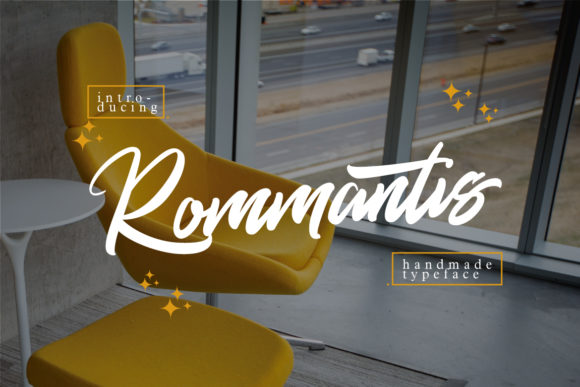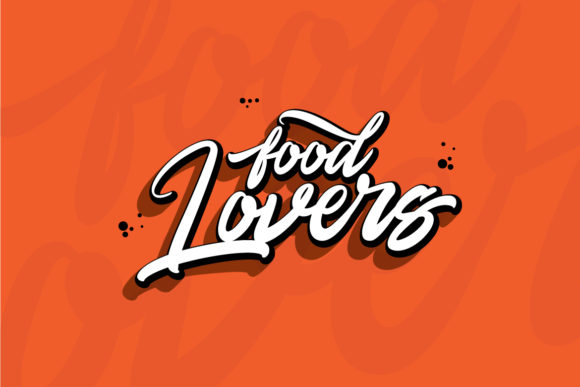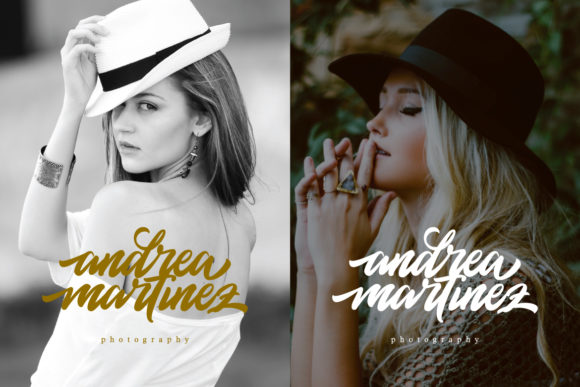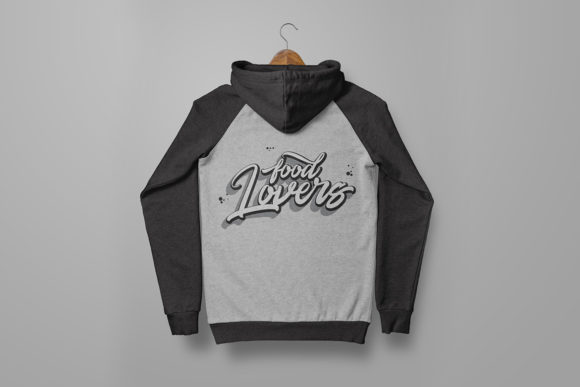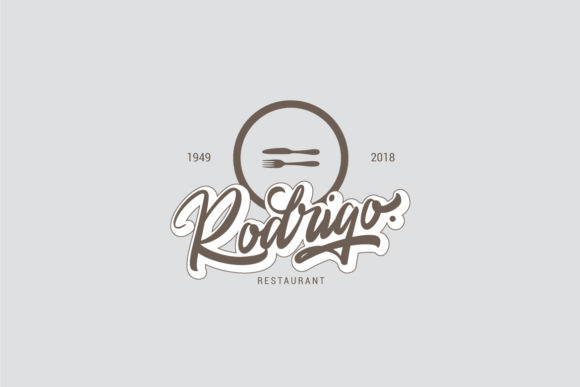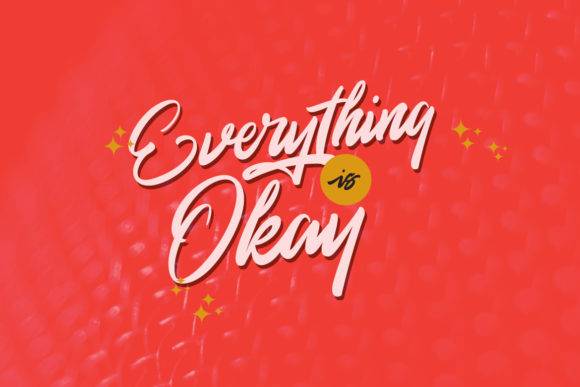
Rommantis Font
About Rommantis Font
Rommantis is a gorgeous yet flowing and unique script. This font is PUA encoded which means you can access all of the glyphs and swashes with ease! It features a varying baseline, smooth lines, gorgeous glyphs and stunning alternates. Fall in love with its incredibly relaxed style and make your designs stand out!